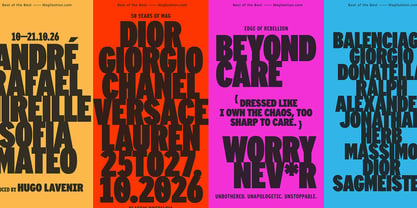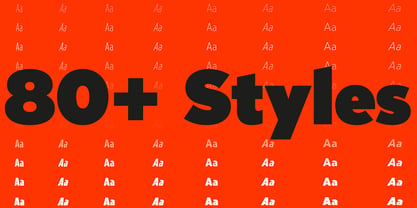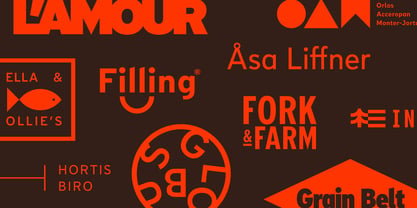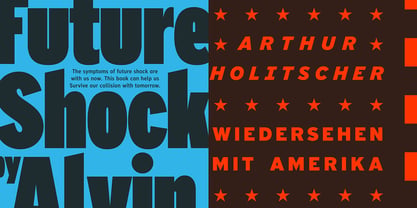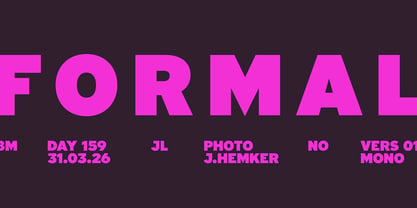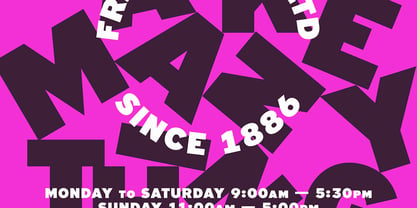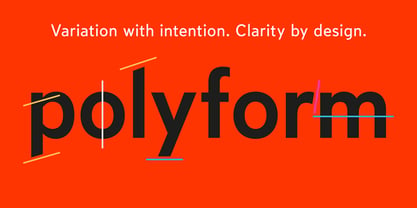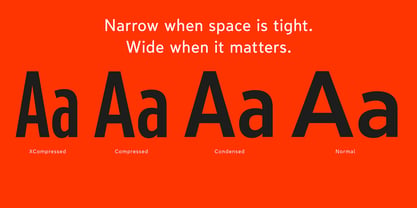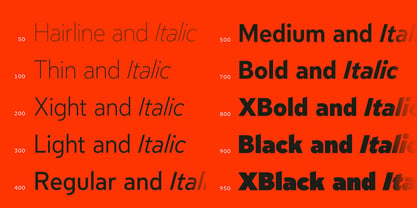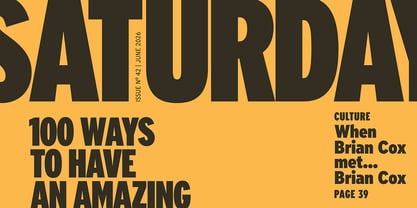
Limit Display Variable Concept
The Limit Display Variable Concept Font Family was designed by Jörg Hemker and published by Bold Guys™. Limit Display Variable Concept contains 2 styles and family package options. More about this family
Limit™ Display Variable transforms maximum presence into controlled impact. Its confident proportions, open curves, and steady rhythm expand across a continuous system — allowing scale, weight, and width to be tuned with precision. Designed for headlines, signage, and bold statements, it adapts seamlessly from restrained emphasis to commanding dominance while preserving clarity and structure. Powerful, modern, and unmistakably assertive — now fully adjustable.